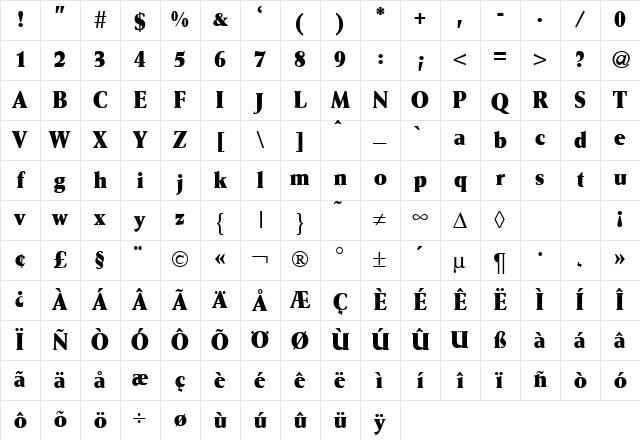
WaizeCondExtrabold Regular
Design Context for WaizeCondExtrabold
WaizeCondExtrabold is a composed and adaptable typeface that performs quietly and consistently across a wide range of design contexts. Its bold stroke weight gives it real presence on the page. Its narrow stance lets it pack a punch even in space-constrained designs.
Pro Tip: Use WaizeCondExtrabold in both headline and body roles to test its range before committing to a single application.